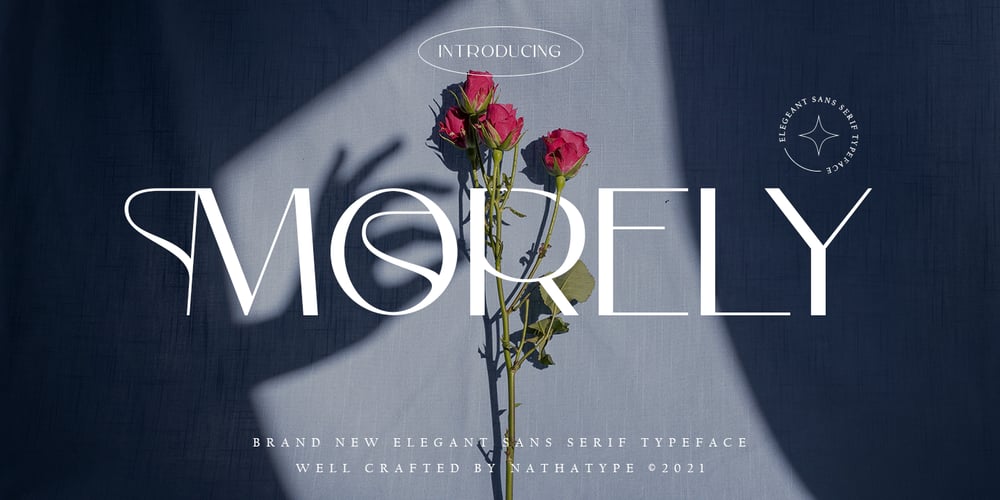
Morely Font Family was designed by Donis Miftahudin and published by Nathatype. Morely contains 1 styles and family package options. Looking for adventurous, bold, and expressive. font? You want to carve out a mark in this world, and you’re not shy to do that. Make a statement!Morely – A Sans Serif FontMorely is one of the most elegant, exquisite yet strong font design with modern vibe. This is a timeless font, will never go wrong for your audience, clients, guests or anyone around you. A real head-turner for your presentation, designs, website illustrations, and much more. Our font always feat Multilingual Option to make your brand globally acceptableFeatures: Ligatures Alternates Stylistic Set Swashes PUA Encoded Numerals and Punctuation Thank you for downloading premium fonts from Nathatype